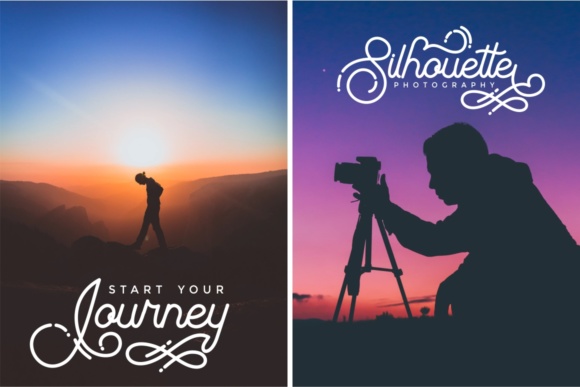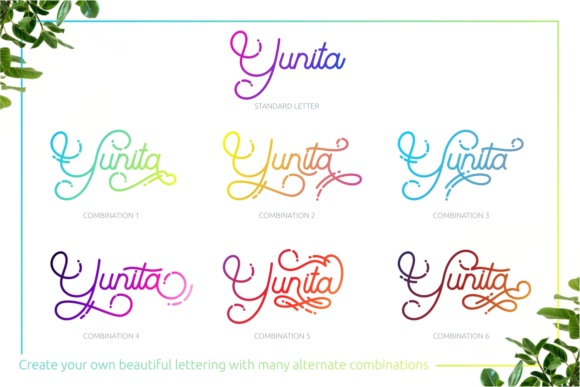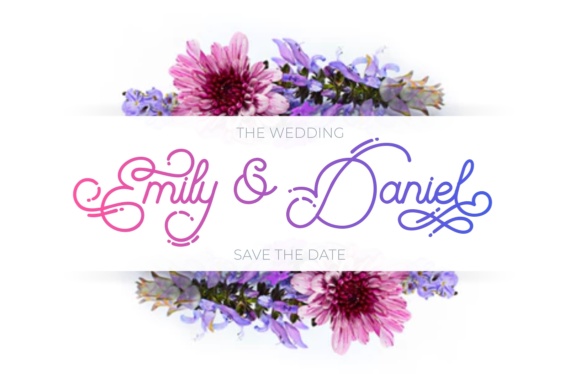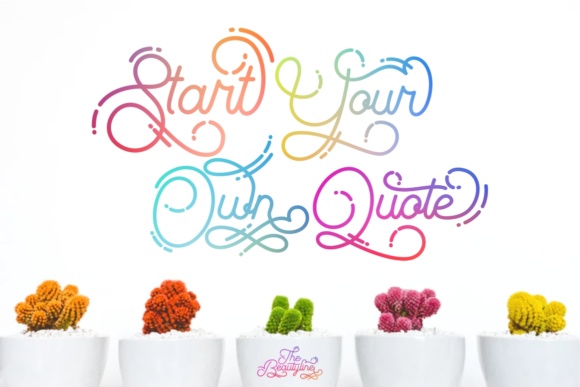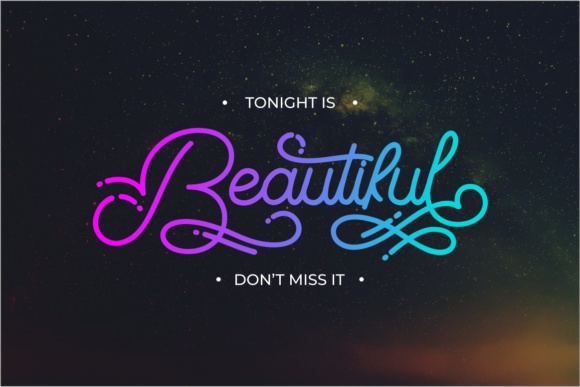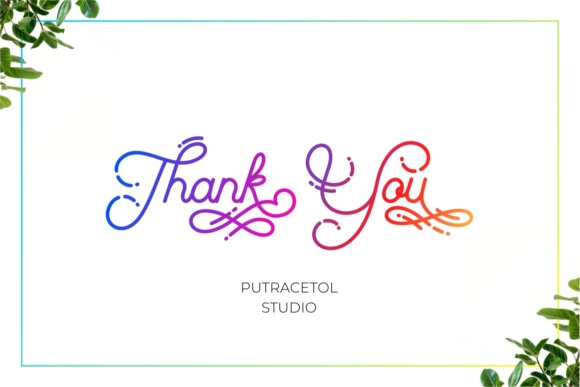
The Beautyline Font
About The Beautyline Font
The Beautyline is a modern monoline script typeface. The swirly letters have a good readability and an feminine feel. It’s perfect for giving your design an elegant touch!